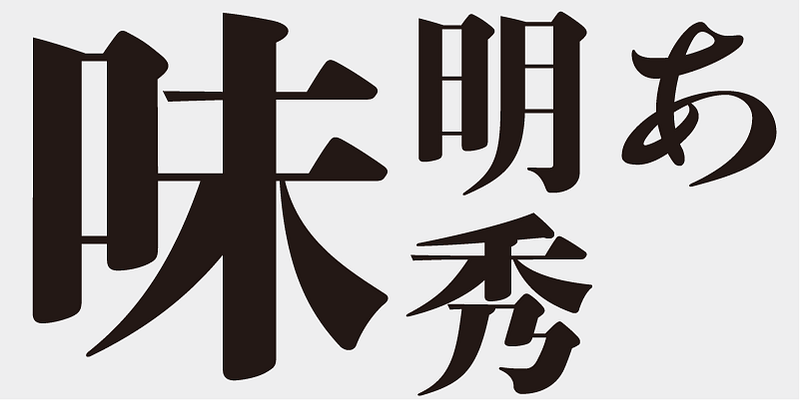
AB Ajimin Syu/EB Font Free Download is an extra bold serif typeface that elegantly blends the traditional beauty of Japanese Mincho with a contemporary design touch. The Syu/EB style is distinguished by its high stroke contrast, sharp and refined serifs, and graceful proportions—making it ideal for luxury branding, editorial headlines, book covers, and cultural projects that demand both impact and sophistication.
This font brings out the artistry of calligraphic influence while offering excellent readability and modern structure. It supports both Japanese and Latin scripts, allowing seamless integration in bilingual and global design projects that require harmony across languages.